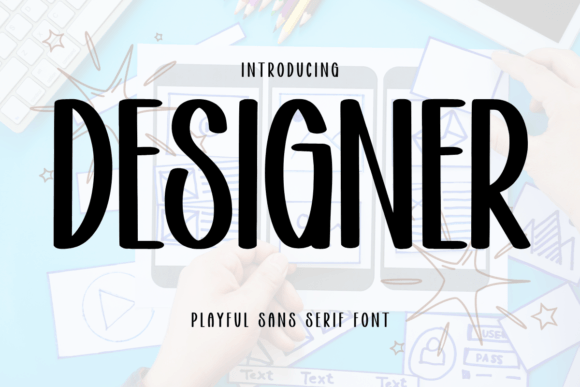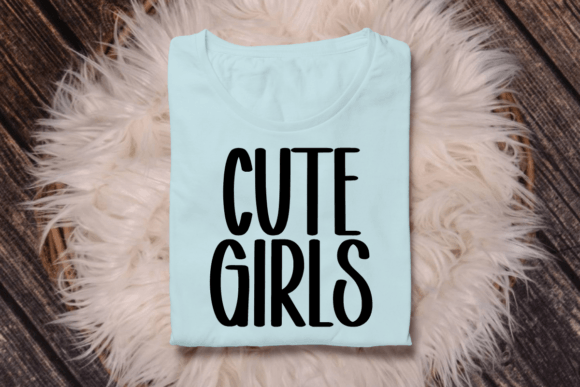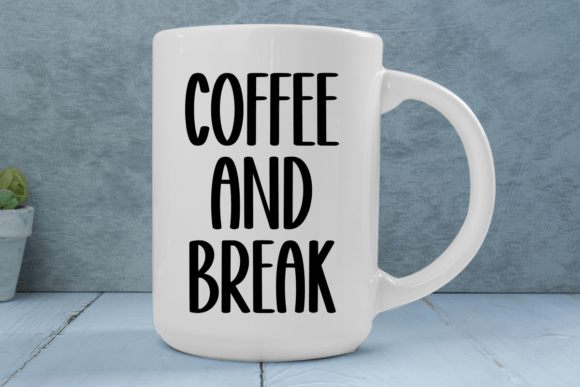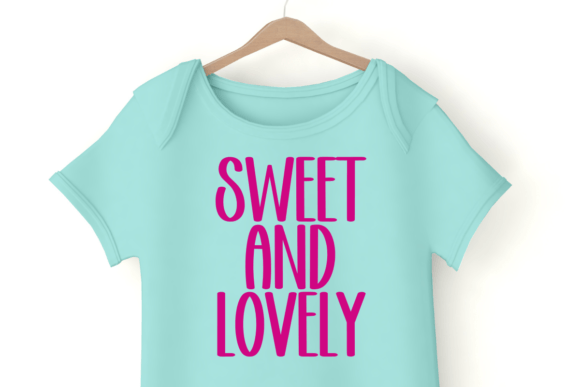
Designer Font: Cute & Playful Sans Serif for Cricut & DIY Projects
About the Designer Font
The Designer Font is here to transform your projects with its distinctive character and style. Designer is a neat and casual sans-serif font designed for clarity and readability. With its clean lines and balanced proportions, Designer is versatile and suitable for various design projects, from digital interfaces to print materials. Its simplicity and modern appeal make it a practical choice for communication.
Designer excels in headlines, short-form text on websites, and branding applications where a clean, modern aesthetic is desired. Its legibility makes it suitable for signage and short marketing materials. However, its light weight may make it less effective for body text or lengthy paragraphs. Avoid using it in UI elements requiring high readability at small sizes.
The font possesses a friendly, approachable personality, making it ideal for brands focusing on technology, lifestyle, or education. Its neutral tone allows it to complement various color palettes and styles.
Pairing Designer with a contrasting serif like Lora for body text creates visual balance. For a bolder statement, consider pairing it with a geometric sans-serif like Montserrat. A playful script like Pacifico could be used for accents, provided the context remains consistent with the overall friendly feel.